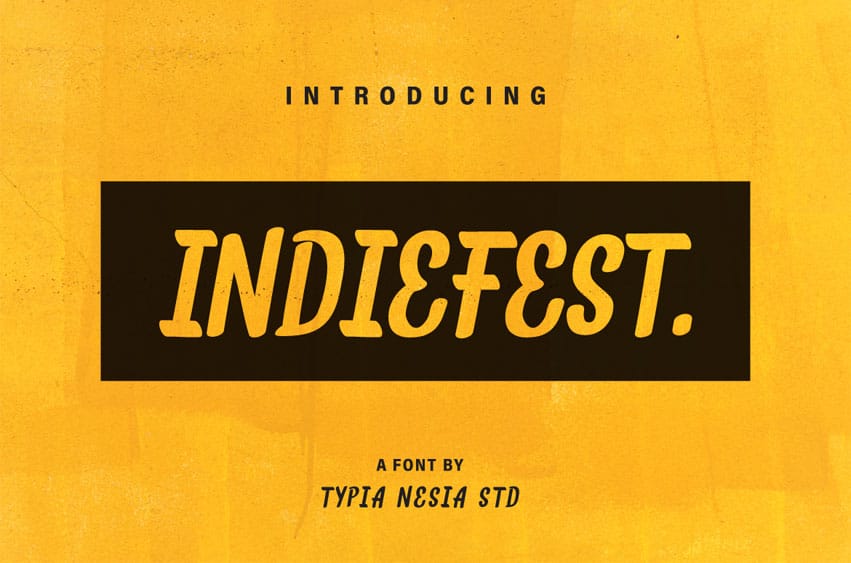
IndieFest Font is a marker lettering font, suitable for a wide range of hipster and urban designs.
This sans serif font looks great as a display, and can add a hip and stylish edge to your designs.